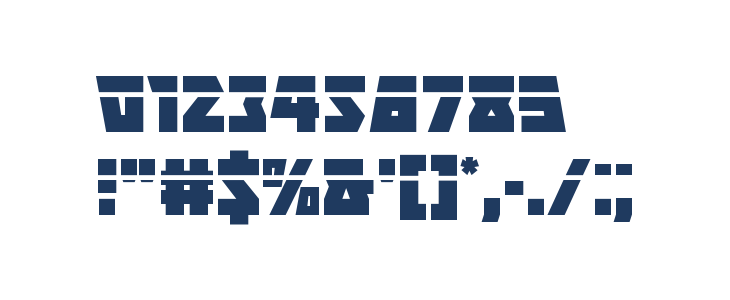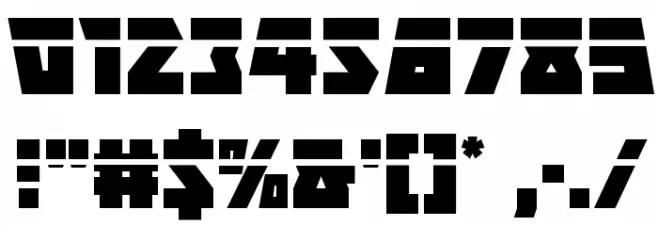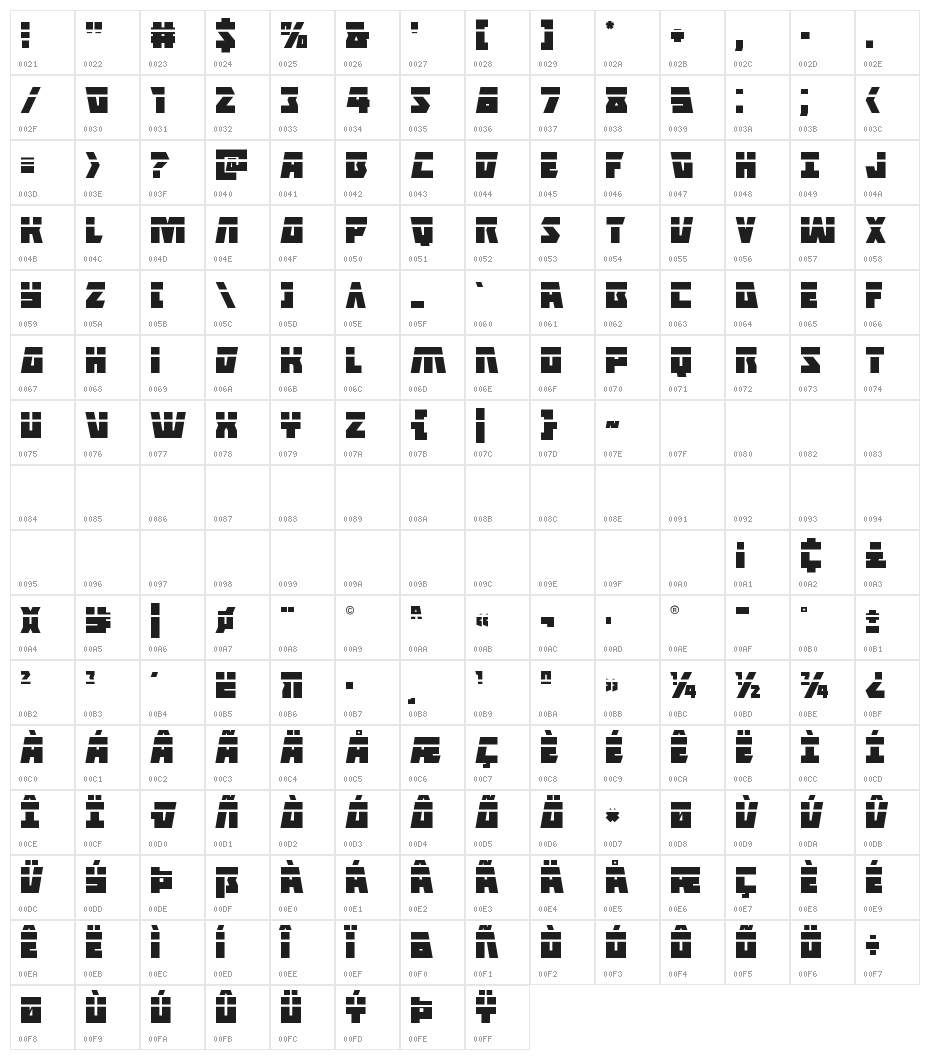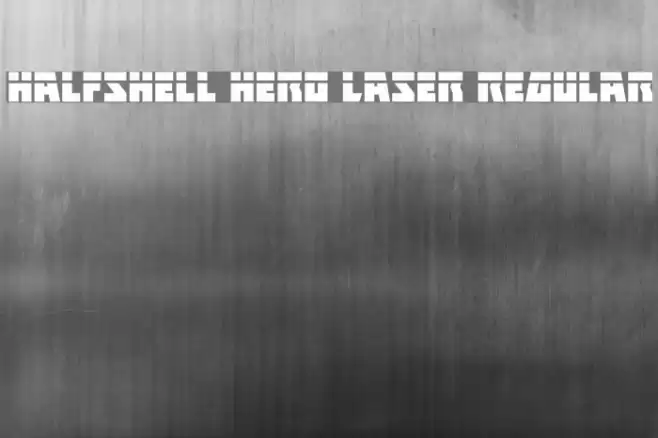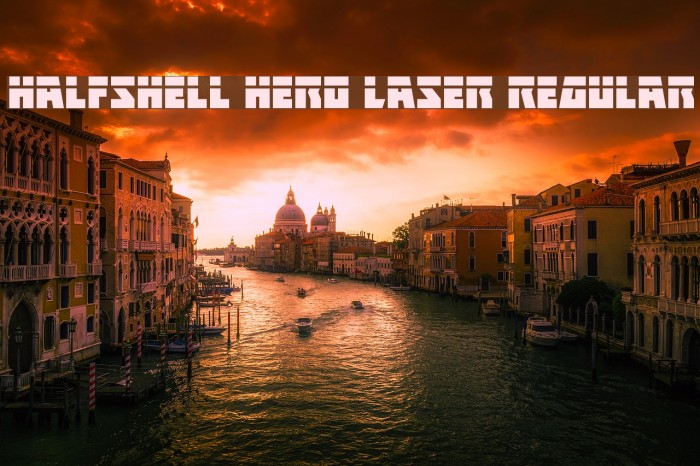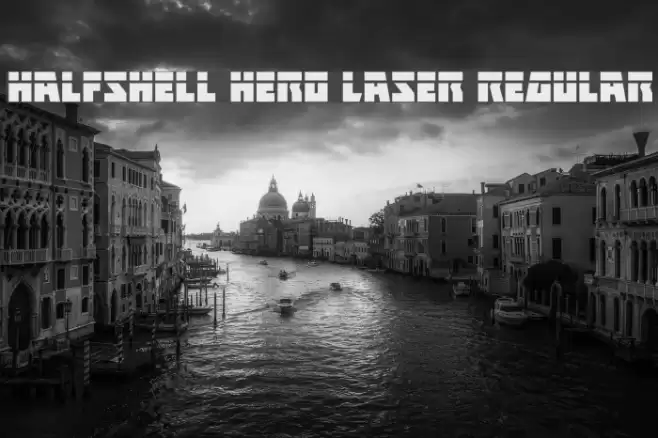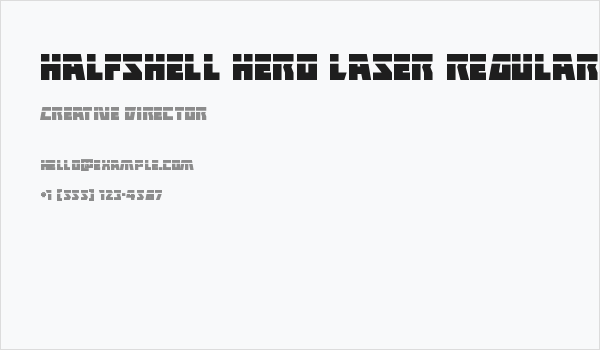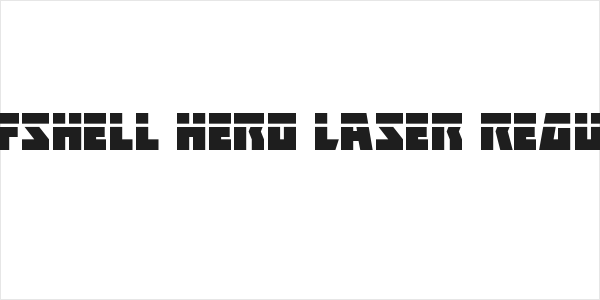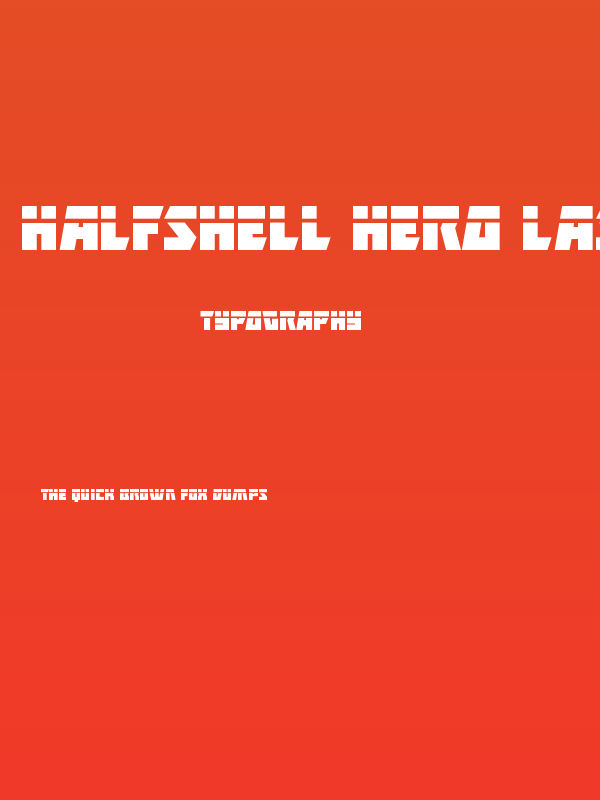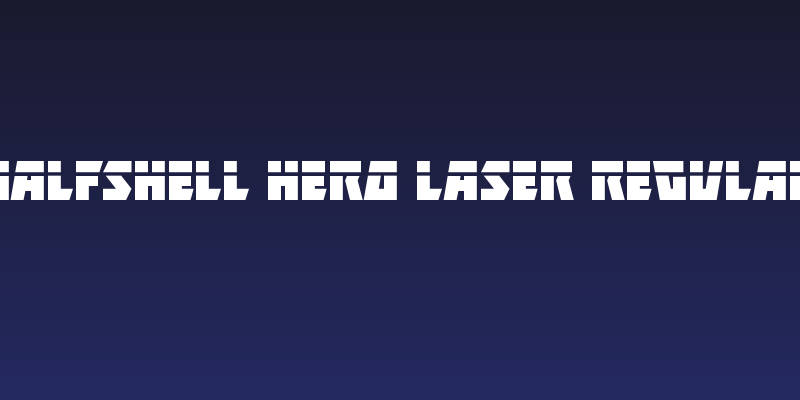
Halfshell Hero Laser Regular Font
Halfshell Hero Laser Regular Description
This font features a bold, geometric design with a futuristic and angular aesthetic. Each character is constructed with sharp, block-like shapes that give it a strong, impactful presence. The uppercase letters are particularly striking, with a uniform height and width that create a cohesive look. The lowercase letters maintain this bold style, ensuring consistency across the typeface. Numbers and special characters are designed with the same geometric precision, making them stand out. The overall style is modern and decorative, suitable for projects that require a bold statement.